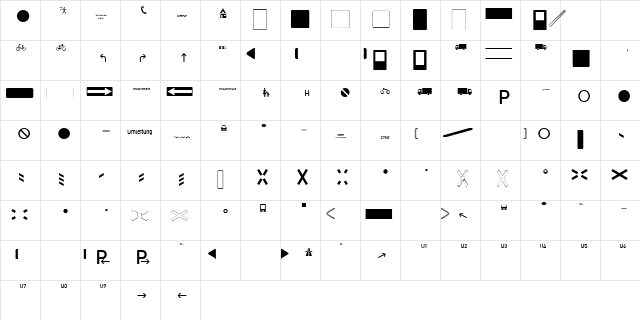
Zeichen Dreihundert Regular
Design Context for Zeichen Dreihundert Typeface
Zeichen Dreihundert takes a measured approach to typography — its balanced proportions and neutral character make it a reliable workhorse for both digital and print work.